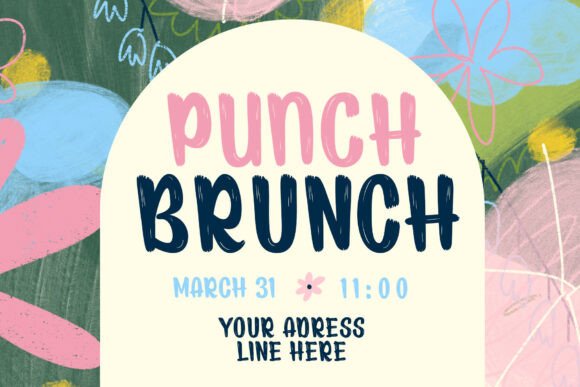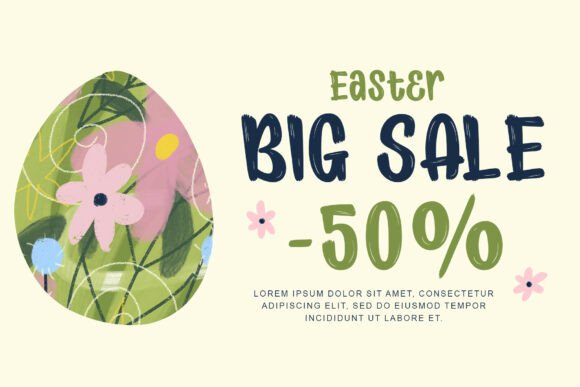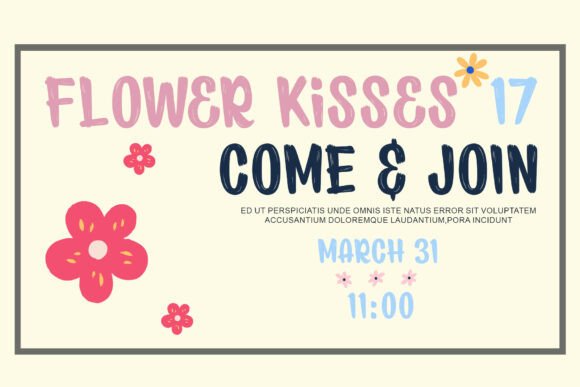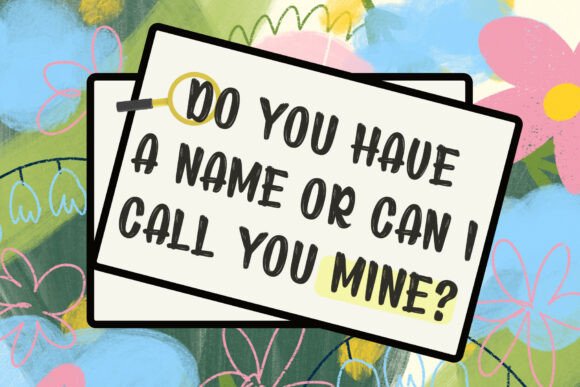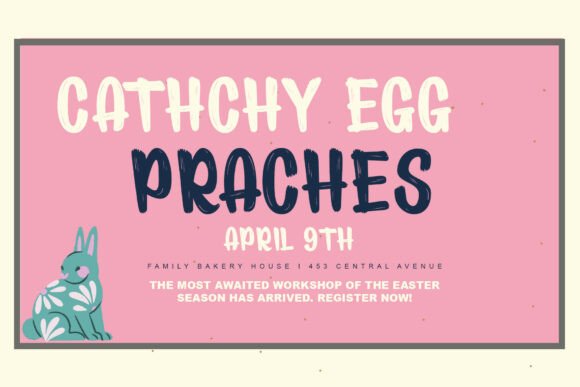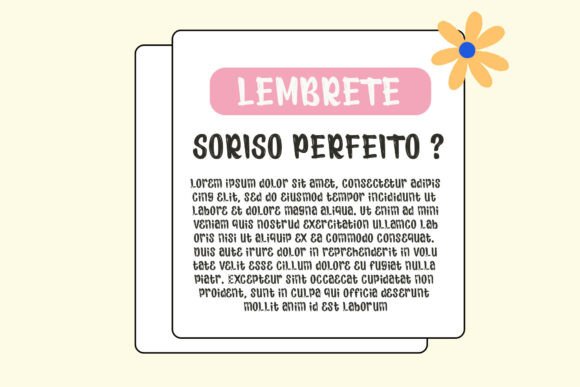
Easter Spring Font: The Perfect Choice for Your Spring Celebrations
As the snow melts and flowers bloom, the season of renewal is finally here! Easter Spring, a charming display font, is designed to bring warmth and a handcrafted touch to your festive projects. With its rounded, friendly letterforms and subtle hand-drawn grit, Easter Spring is the perfect choice for Easter and Spring celebrations.
What Makes Easter Spring Font So Special?
Easter Spring font features rounded, friendly letterforms with a subtle hand-drawn grit, making it a unique and charming addition to any design project. The font’s playful and organic feel is perfect for holiday greeting cards, children’s event posters, seasonal branding, and social media graphics.
The Best Font for Easter & Spring Celebrations
Easter Spring font is specifically designed to capture the spirit of Easter and Spring. Its cheerful and lively feel makes it perfect for a wide range of design projects, from community egg hunts to floral boutiques. Whether you’re designing for a holiday market, a spring festival, or a seasonal sale, Easter Spring font is the perfect choice.
Easter Spring font is a versatile and easy-to-use font that’s perfect for designers and crafters alike. With its wide range of applications, from digital designs to print materials, this font is a must-have for anyone looking to add a touch of springtime charm to their projects.
Why Choose Easter Spring Font?
- Unique and charming design: Easter Spring font features rounded, friendly letterforms with a subtle hand-drawn grit, making it a one-of-a-kind addition to any design project.
- Perfect for Easter and Spring celebrations: This font is specifically designed to capture the spirit of Easter and Spring, making it the perfect choice for holiday greeting cards, children’s event posters, and seasonal branding.
- Versatile and easy to use: Easter Spring font is a versatile and easy-to-use font that’s perfect for designers and crafters alike.
- Adds a cheerful, organic energy: This font adds a cheerful, organic energy that resonates with the beauty of nature, making it perfect for designs that require a playful and lively feel.
Ideas for Using Easter Spring Font
Easter Spring font is perfect for a wide range of design projects, including:
- Holiday greeting cards: Add a touch of springtime charm to your holiday greeting cards with Easter Spring font.
- Children’s event posters: Create eye-catching posters for children’s events, such as Easter egg hunts and spring festivals.
- Seasonal branding: Use Easter Spring font to create seasonal branding for your business, including logos, packaging, and advertising.
- Social media graphics: Add a touch of springtime charm to your social media graphics, including Facebook posts, Instagram stories, and Twitter headers.
- Community egg hunts: Create eye-catching posters and flyers for community egg hunts and other Easter events.
- Floral boutique designs: Use Easter Spring font to create beautiful and eye-catching designs for floral boutiques and other spring-themed businesses.
Easter Spring font is the perfect choice for designers and crafters looking to add a touch of springtime charm to their projects. With its unique and charming design, versatility, and ease of use, this font is a must-have for anyone looking to create beautiful and eye-catching designs for Easter and Spring celebrations.